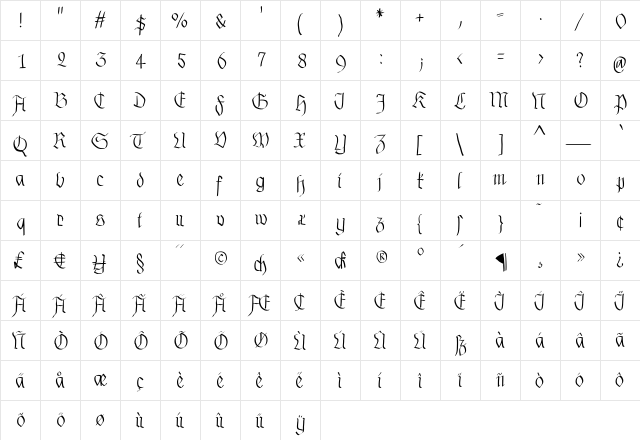
FraxHandwritten Regular
Design Context for FraxHandwritten Typeface
FraxHandwritten brings a calligraphic fluidity to the page — its connecting strokes and expressive curves give it an unmistakably human quality.
Font Pairing: Combine FraxHandwritten with a simple geometric sans for maximum contrast — the tension between flowing curves and clean structure is a classic typographic pairing.
Pro Tip: Use FraxHandwritten for short runs of text — names, titles, or taglines. Extended body copy in script faces tires the eye quickly.